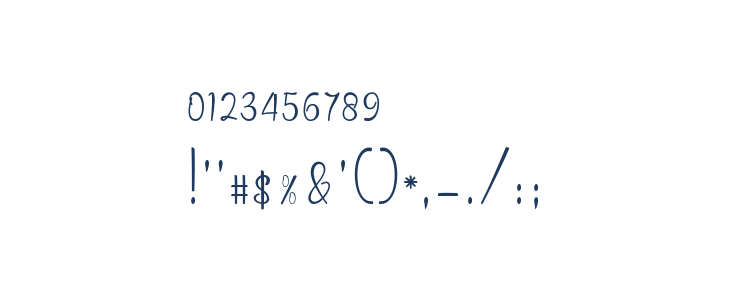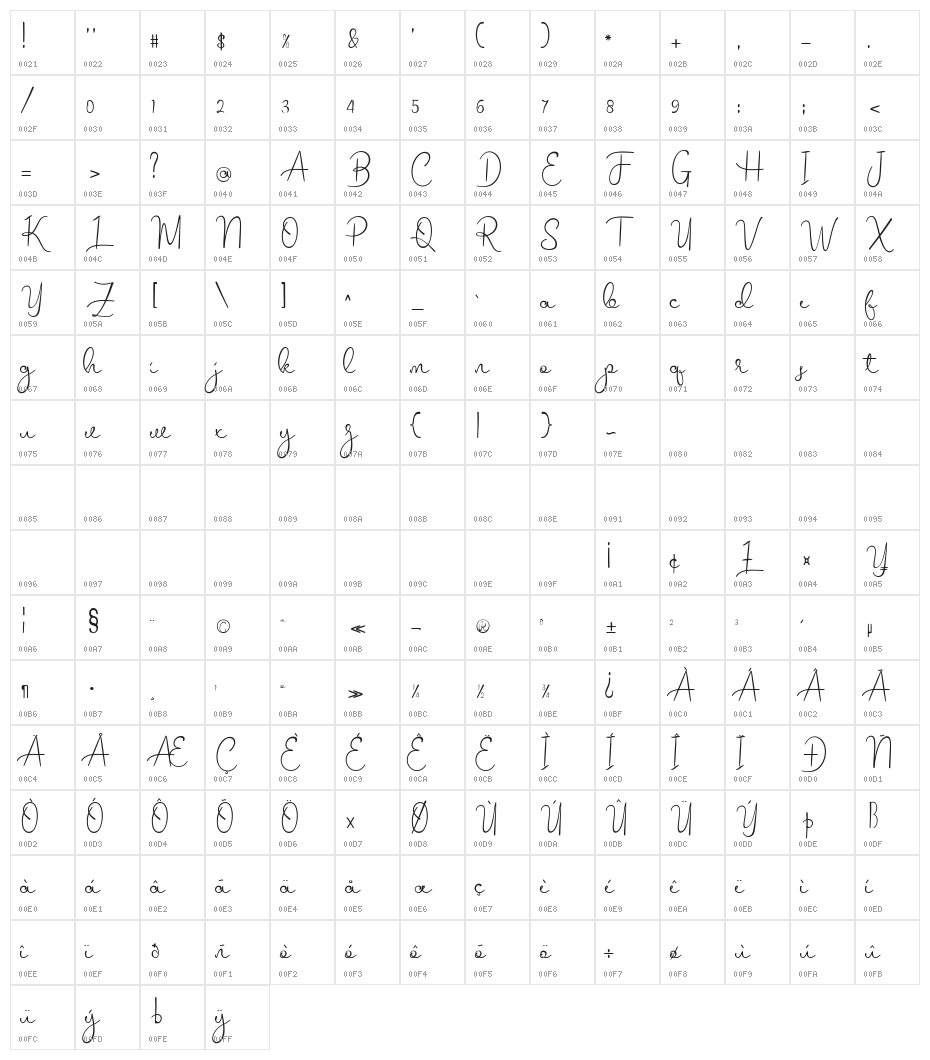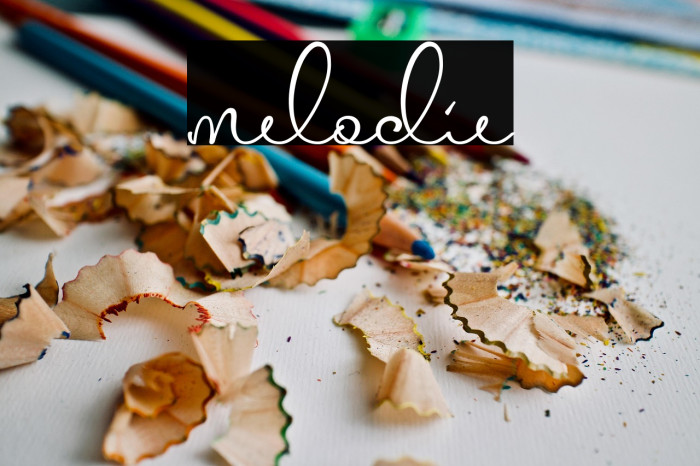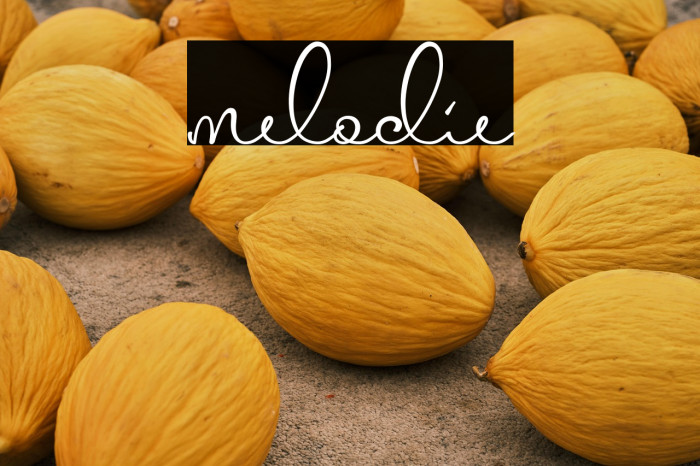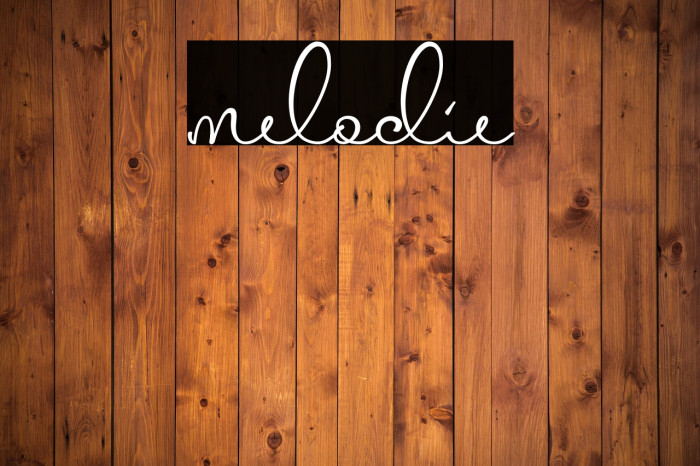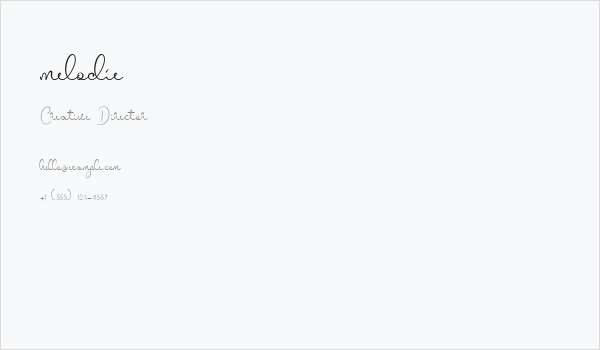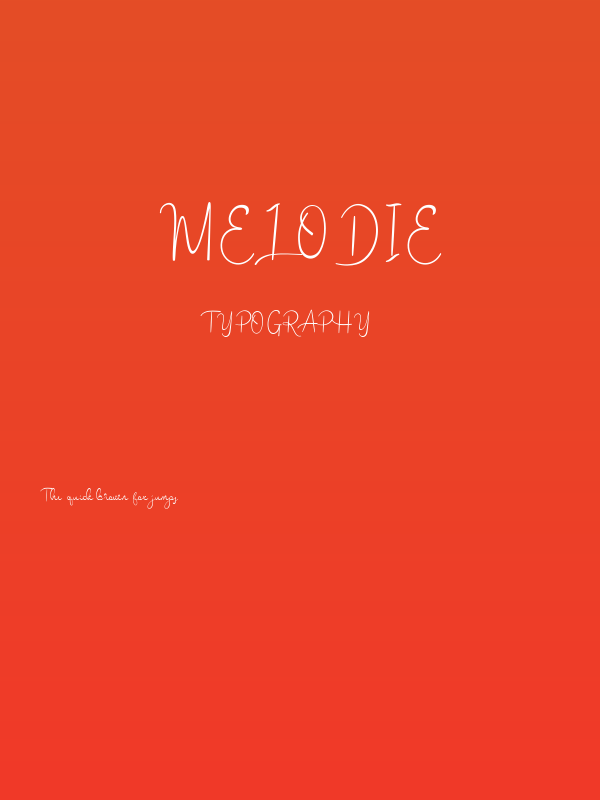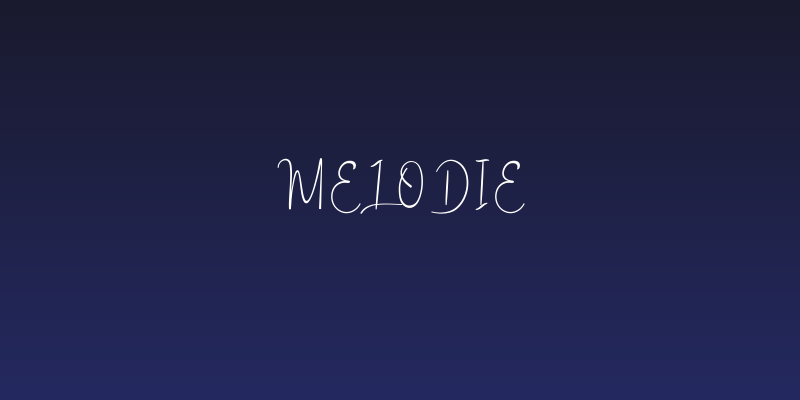
melodie Font
melodie Description
This font features a charming and whimsical handwritten style, characterized by its flowing and interconnected letterforms. The uppercase letters are elegantly crafted with a slight slant, giving them a dynamic and lively appearance. The lowercase letters maintain a consistent flow, with some letters extending below the baseline, adding to the playful nature of the font. The numerals are clear and legible, complementing the overall style. Special characters are thoughtfully designed, maintaining the font's cohesive look. The font's thin strokes and smooth curves make it suitable for projects that require a personal and artistic touch.